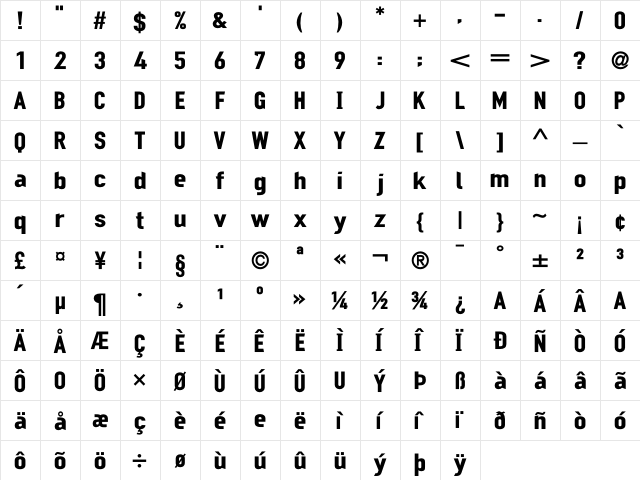
MechanicGothic Regular
Design Context for MechanicGothic Typeface
MechanicGothic takes a clean, functional approach — its unadorned letterforms prioritise legibility and work reliably across screen and print environments.
Font Pairing: Works well alongside a characterful serif or display font that can carry the expressive load while MechanicGothic handles the functional copy.
Pro Tip: Use MechanicGothic for UI labels, navigation, and short-form body copy where clean legibility is the priority.